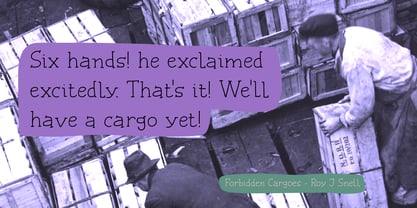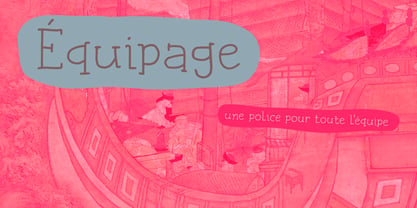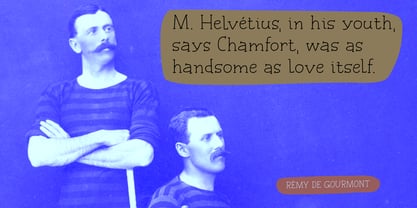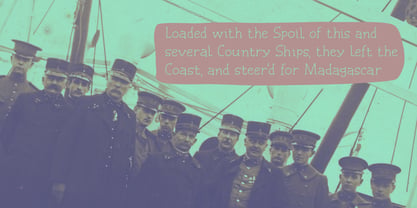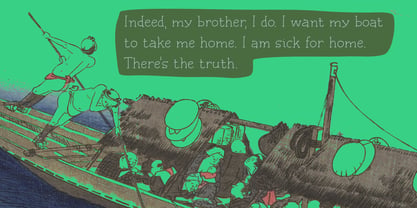
Equipage Pro
La familia tipográfica Equipage Pro fue diseñada por David Kerkhoff y publicada por Hanoded. Equipage Pro contiene 2 estilos y opciones de paquete familiar. Más información sobre esta familia
Équipage is a French word meaning ‘crew’. It is used for the crew on boats, airplanes, but it also applies to horse-drawn carriages and all that goes with it. Originally the word means ‘to fit out’ and it is probably derived from the Norse word ‘skipa’, which means ‘arrange, fit out a ship’. Then, if you’re really interested, the word ‘ship’ hails from this same word, just like the Danish ‘skib’, Middle Dutch ‘ship’, Dutch ‘schip’ and German ‘Schiff’.
See? You learn something every day!
Équipage is a really nice, handmade serif font. It is quite elegant and would look fantastic on labels, postcards and book covers. Comes with extensive language support and a set of alternates for the lower case glyphs.
Hanoded is run by Dutchman David Kerkhoff. His fonts are a mishmash of styles, as he just creates whatever pops into his head. You will find a lot of brush fonts in his collection, as his favourite tools are brushes and Chinese ink, with cartoon style fonts and script fonts complementing his repertoire. Aside from making fonts, David occasionally guides tours in far-flung places, renovates his '30's house and tries reasoning with his wife and (teenage) kids. Not an easy task!